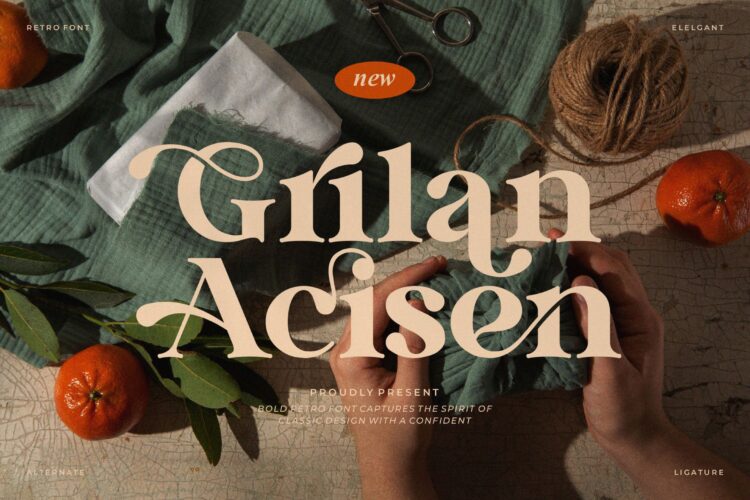
Grilan Acisen Font
Grilan Acisen is a serif font that combines modern and retro styles. It works well for branding, logo design, invitations, movie titles, business cards, book covers, brand names, and more.
Grilan Acisen Serif Font